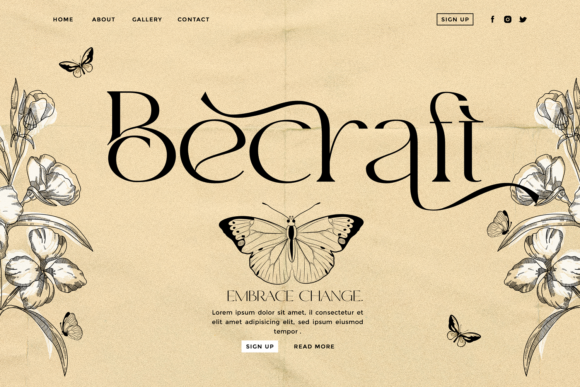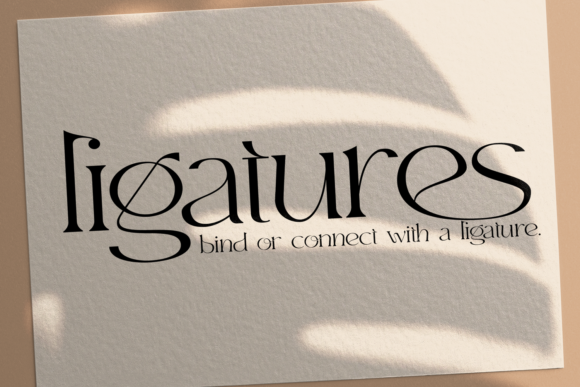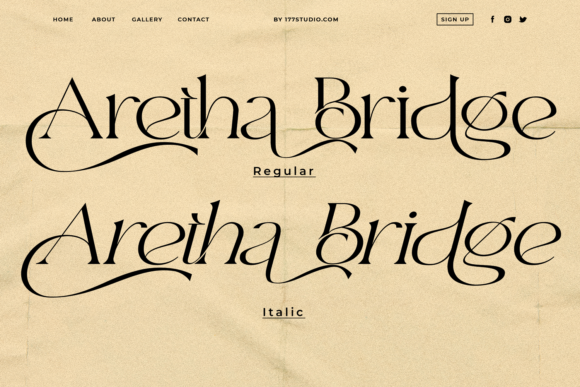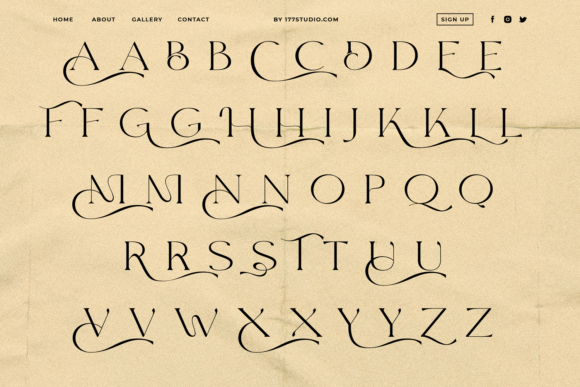
Introduction to Aretha Bridge Font
Make your designs stand out with Aretha Bridge, a stylish and unique serif font.
It will look stunning on posters, thank you cards, quotes, greeting cards, logos, business cards and every other design which needs a creative touch .
Key Features of Aretha Bridge Font
Why Choose Aretha Bridge Font?
Aretha Bridge Font offers exceptional quality and versatility, making it a valuable addition to your design toolkit. Whether you’re creating for personal projects or commercial use, Aretha Bridge Font delivers professional results.